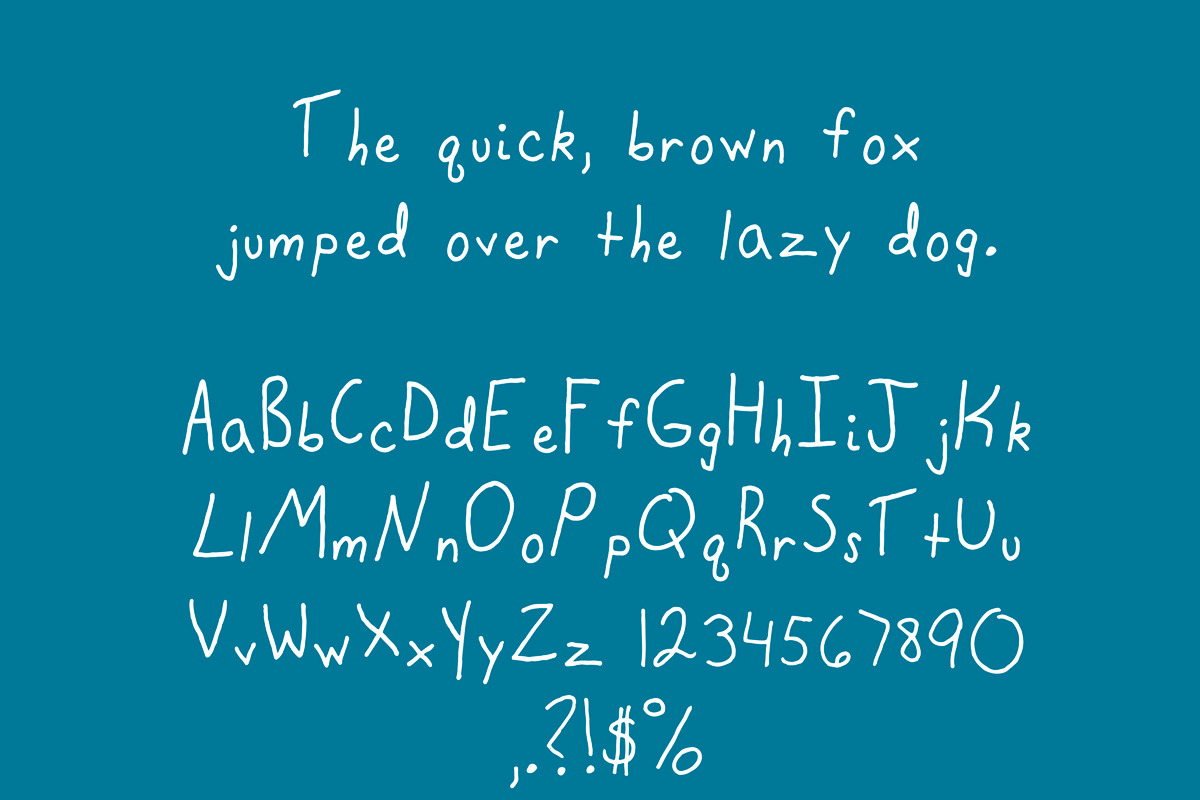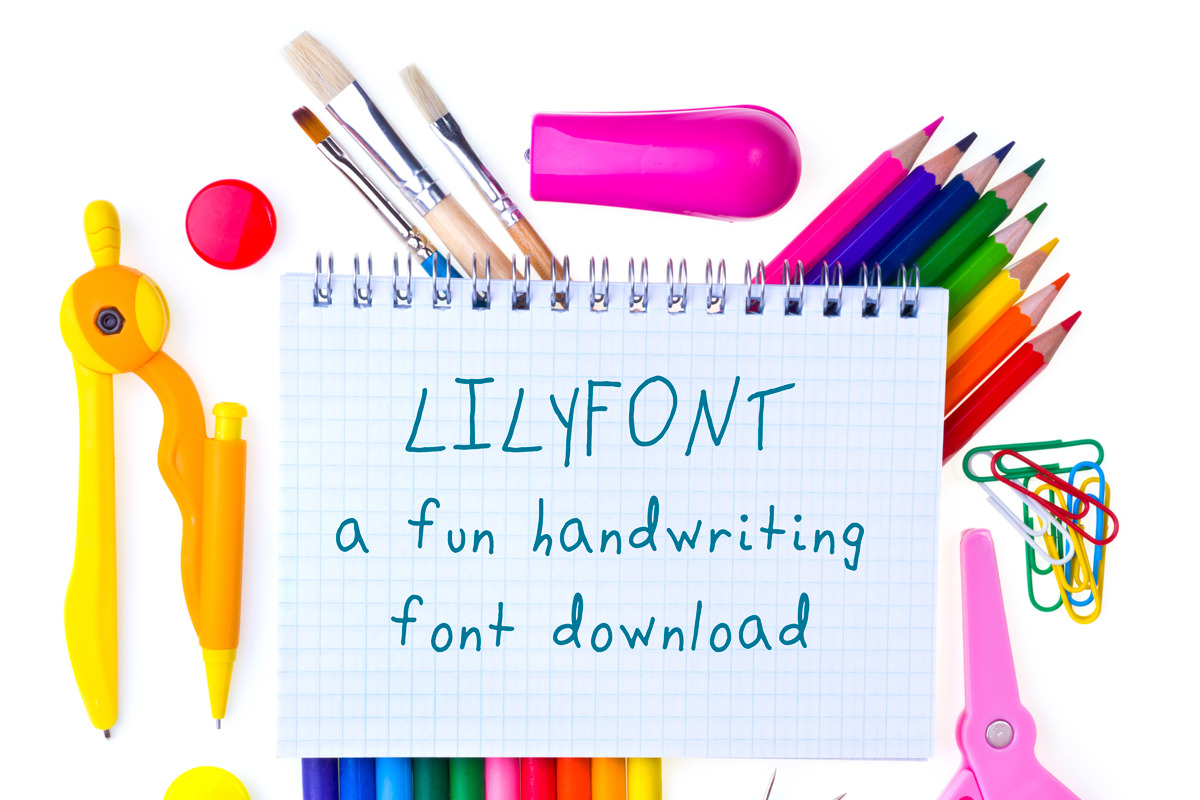
Lilyfont Childrens Handwriting Font
Lilyfont Childrens Handwriting Font by MyNatureGraphics is a font selected for branding, posters, packaging, typography.
Why Lilyfont Childrens Handwriting Font is worth a look
Lilyfont Childrens Handwriting Font by MyNatureGraphics fits naturally into Branding, posters, packaging, typography.